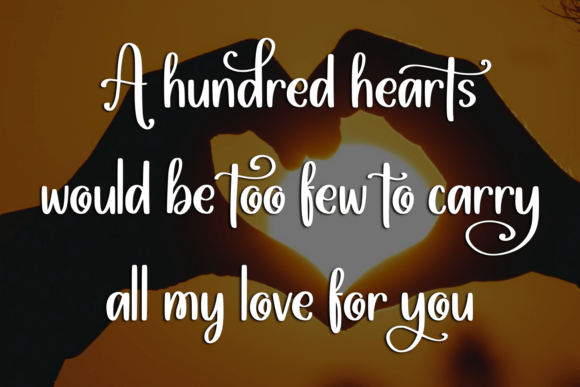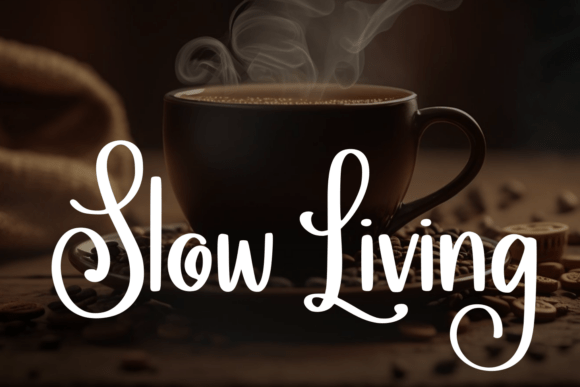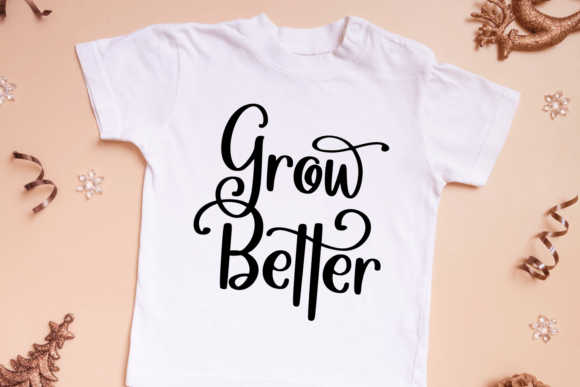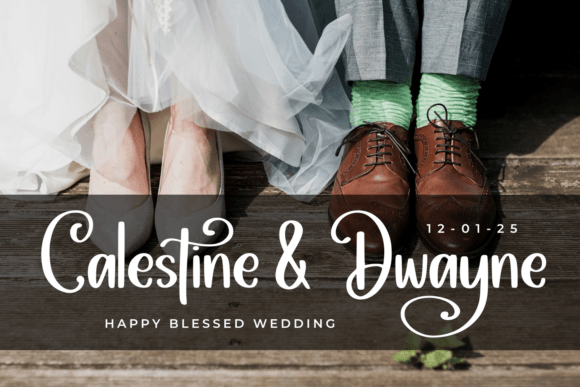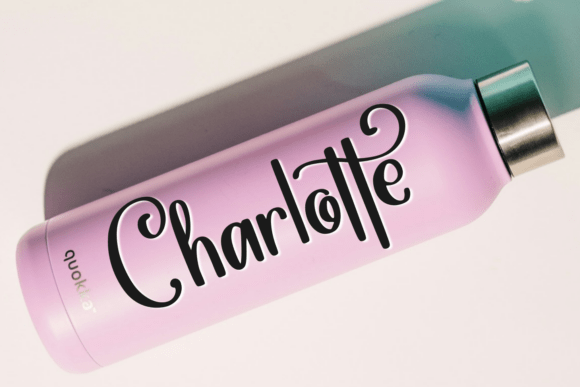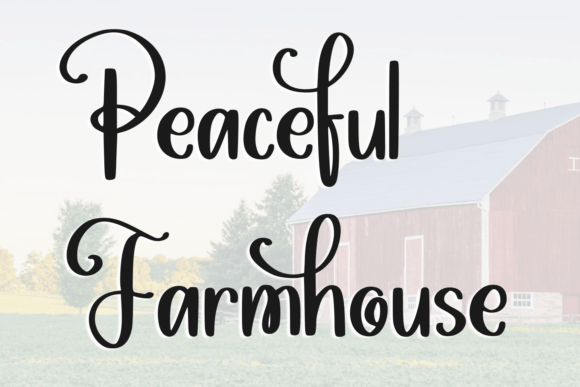
Brittany Font: Adding a Touch of Whimsy to Your Designs
Are you looking for a font that can add a playful and elegant touch to your designs? Look no further than the Brittany font, a beautiful swirly calligraphy font that is sure to delight. In this article, we’ll take a closer look at the Brittany font, its features, and how you can use it to elevate your designs.
What is the Brittany Font?
The Brittany font is a playful swirly calligraphy font designed to dance across the page. Its flowing curves and lively loops create a joyful rhythm, giving each word a sense of motion and charm. The calligraphic strokes feel elegant yet fun, striking a balance between decorative flair and friendly personality.
Key Features of the Brittany Font
- Flowing Curves and Loops: The Brittany font features beautiful flowing curves and lively loops that give each word a sense of motion and charm.
- Elegant yet Fun: The calligraphic strokes in the Brittany font feel elegant yet fun, making it perfect for a wide range of design projects.
- Alternate Characters: The Brittany font comes equipped with a selection of alternate characters, allowing you to add variety and creativity to your lettering.
- Whimsical Elegance: The Brittany font brings a whimsical elegance to your designs, turning simple text into something delightfully expressive.
Uses for the Brittany Font
The Brittany font is perfect for a wide range of design projects, including:
- Invitations: Whether you’re designing wedding invitations, birthday invitations, or any other type of invitation, the Brittany font is sure to add a touch of elegance and whimsy.
- Branding: The Brittany font is perfect for branding projects, such as logos, business cards, and letterheads.
- Quotes: Add a touch of elegance and sophistication to your quotes with the Brittany font.
- Packaging: The Brittany font is perfect for packaging design, adding a touch of whimsy and elegance to your product labels and packaging.
- Romantic Projects: The Brittany font is perfect for romantic projects, such as Valentine’s Day cards, love letters, and romantic quotes.
Tips for Using the Brittany Font
Here are a few tips for using the Brittany font in your designs:
- Experiment with Alternate Characters: The Brittany font comes with a selection of alternate characters, so don’t be afraid to experiment and try out different characters to add variety to your lettering.
- Play with Size and Color: The Brittany font looks great in a variety of sizes and colors, so don’t be afraid to experiment and find the perfect combination for your design.
- Pair with Other Fonts: The Brittany font pairs well with a variety of other fonts, so don’t be afraid to experiment and find the perfect combination for your design.
The Brittany font is a beautiful and versatile font that is perfect for a wide range of design projects. Its flowing curves and lively loops create a joyful rhythm, giving each word a sense of motion and charm. With its elegant yet fun calligraphic strokes and selection of alternate characters, the Brittany font is sure to add a touch of whimsy and elegance to your designs. Whether you’re designing invitations, branding materials, quotes, packaging, or romantic projects, the Brittany font is a great choice.
The Brittany font is a beautiful and versatile font that is sure to delight designers and crafters alike. Its unique combination of elegance and whimsy makes it perfect for a wide range of design projects. Whether you’re a professional designer or a DIY crafter, the Brittany font is a great addition to your font collection.